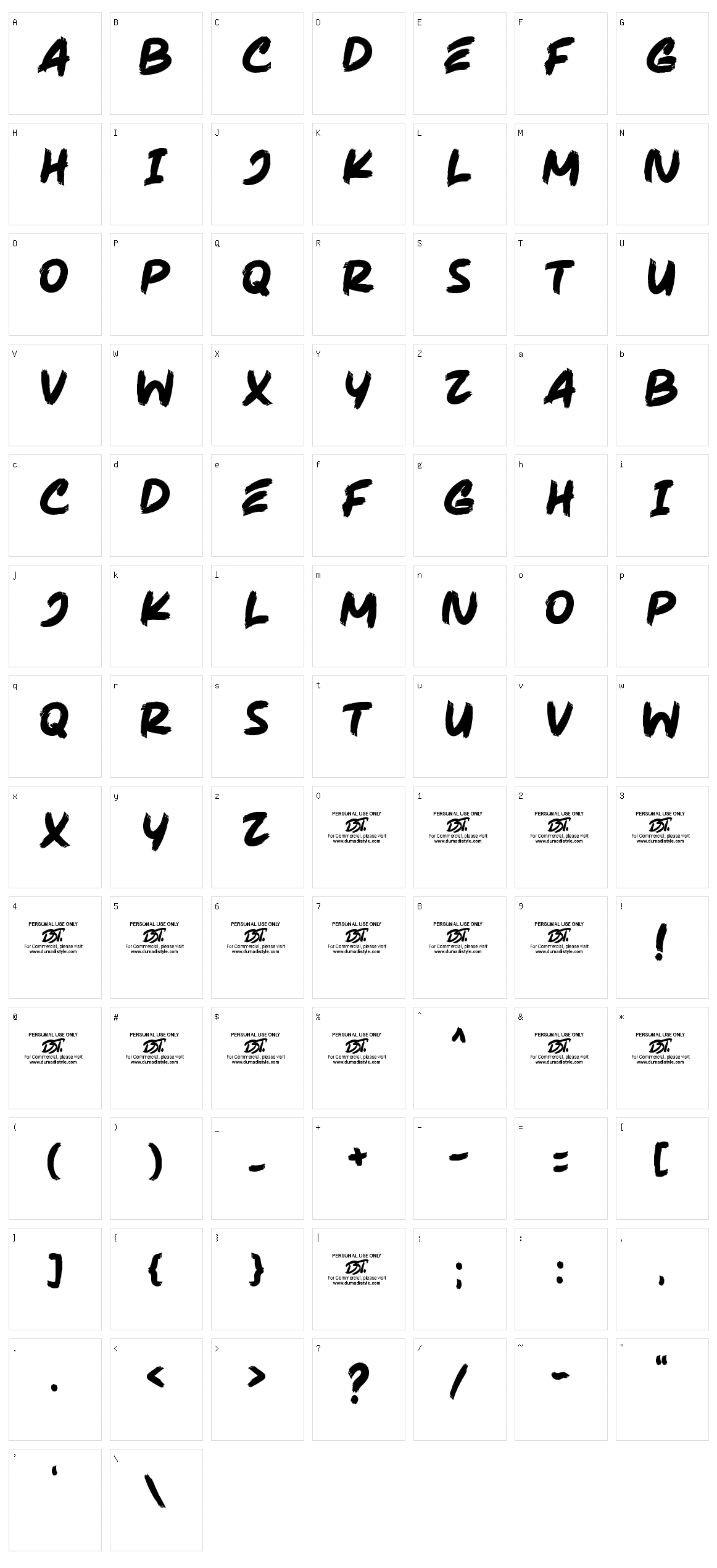
The free font Warrior Brush is carefully designed by DumadiStyle, showcasing a thoughtful balance of creativity and usability and falls under the Script font style. When you download the ZIP file, it contains only 3342.94 KB of font files, making it lightweight and quick to download. Please review the license details below to understand permitted usage and distribution rights. If license information is not available, we recommend using this font for personal projects only or contacting the author directly for commercial usage permissions.